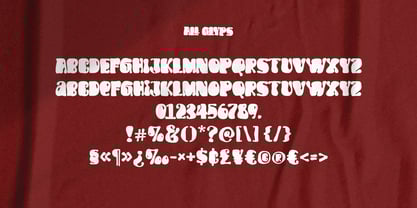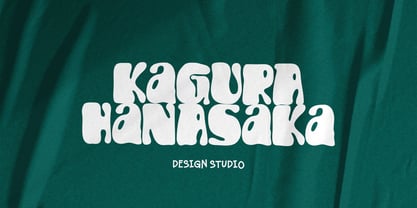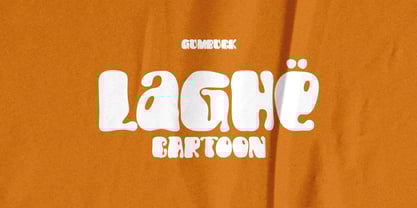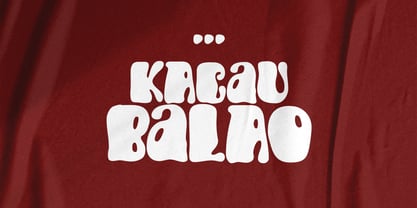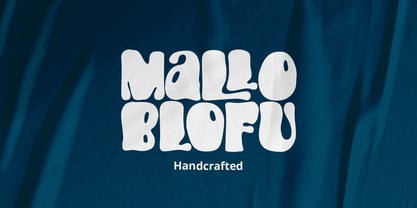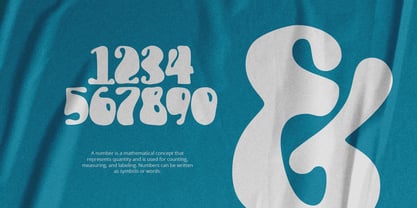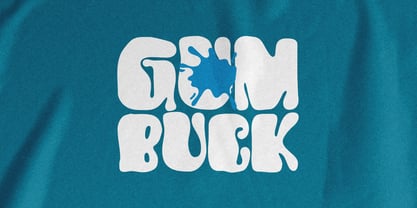
Gumbuck
by Grontype
The Gumbuck Font Family was designed by Jarnawi Saja and published by Grontype. Gumbuck contains 2 styles and family package options.
Gumbuck is a bold and playful handwriting display font that brings a fun and unique touch to your designs. Inspired by the soft, bouncy feel of balloons and the stretchy nature of gum, Gumbuck features thick, rounded strokes that exude a lively and energetic personality. Perfect for eye-catching headlines, branding, packaging, posters, and creative projects, this font adds a whimsical and cheerful vibe to any design. Let Gumbuck bring a sense of fun and uniqueness to your typography!
Features:
• Black and rounded Style
• Decorative Font
• Creative Ligatures
• Basic Latin Glyphs
• Unique and Cheerful
• Numeral and Punctuation
• Currencies
• Multilingual Support